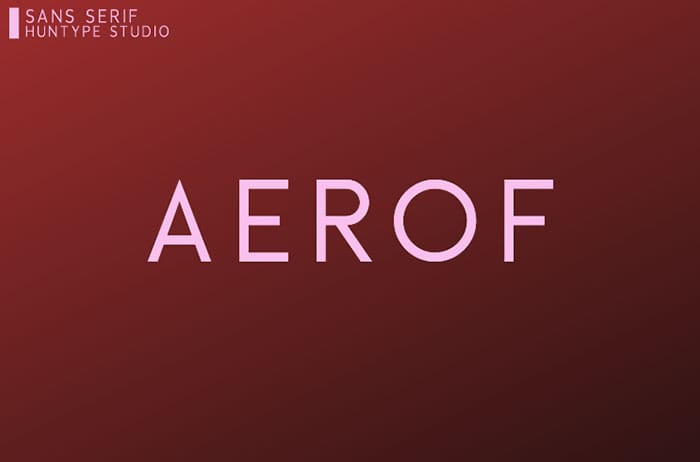
Aerof Sans Serif Font
Aerof is a simple and casual sans serif font with an undeniably clean feel. With its neat and beautiful arrangement of letters, this typeface will look outstanding in both formal and non-formal designs. Thanks to Mas Anis for sharing this wonderful font! Take a look at this portfolio for more of his stunning fonts.